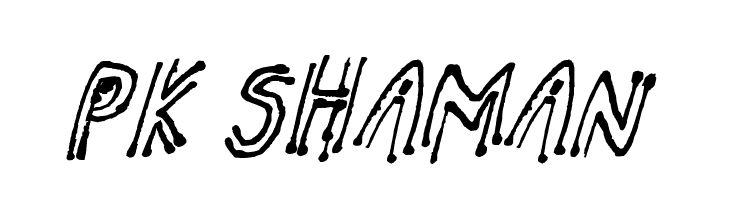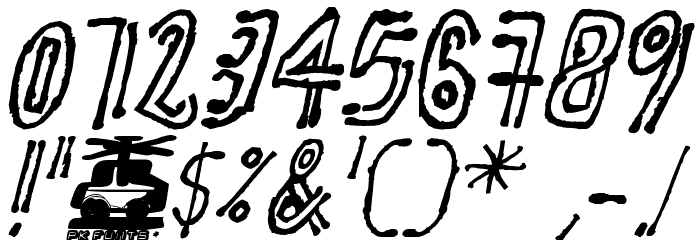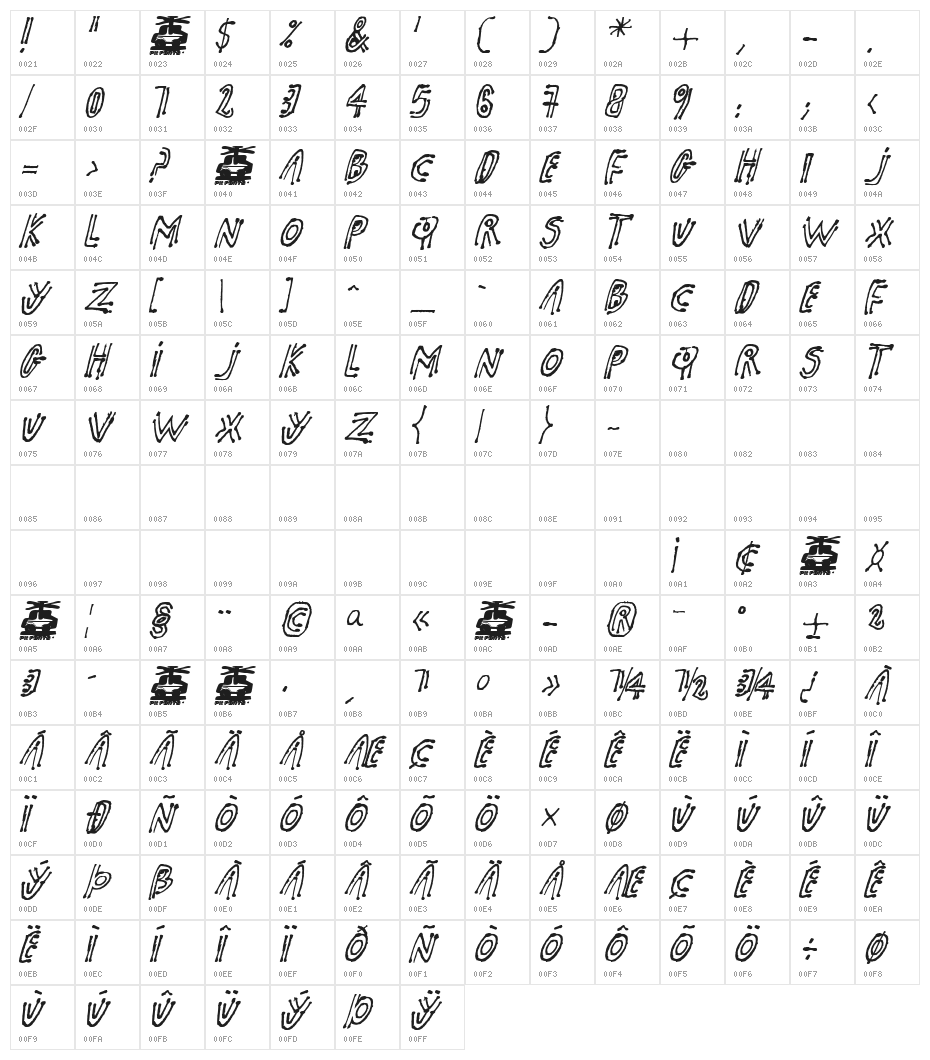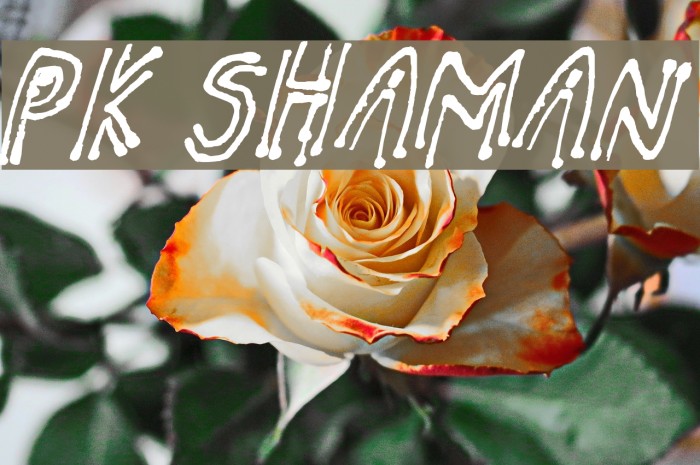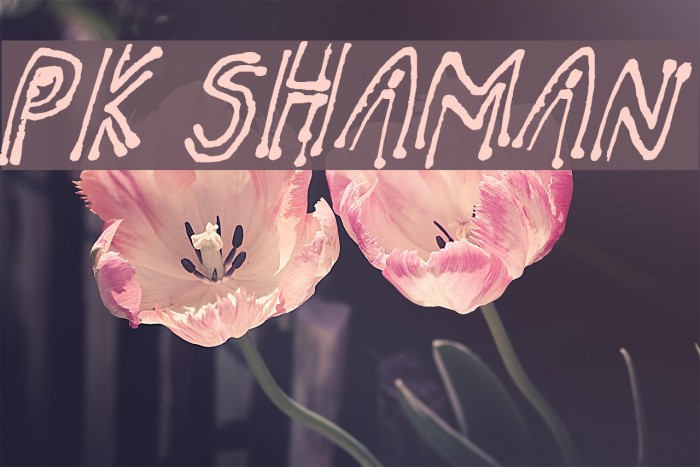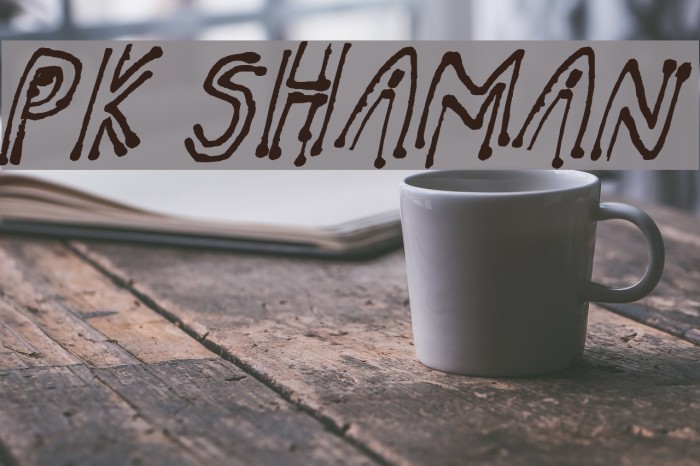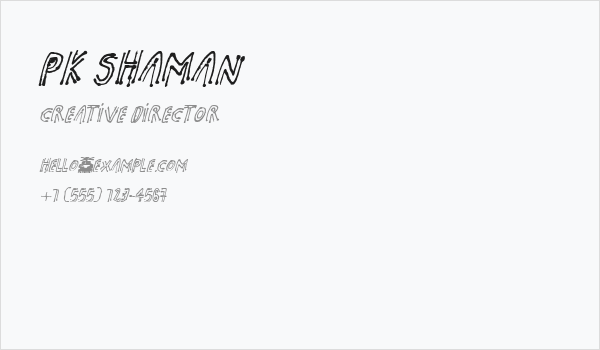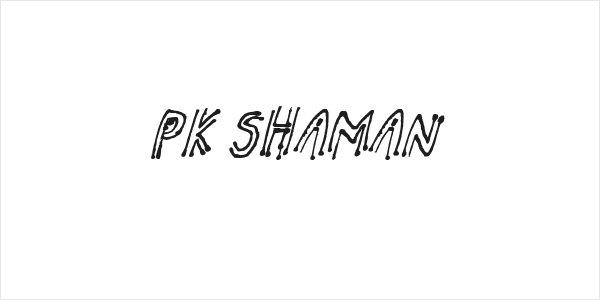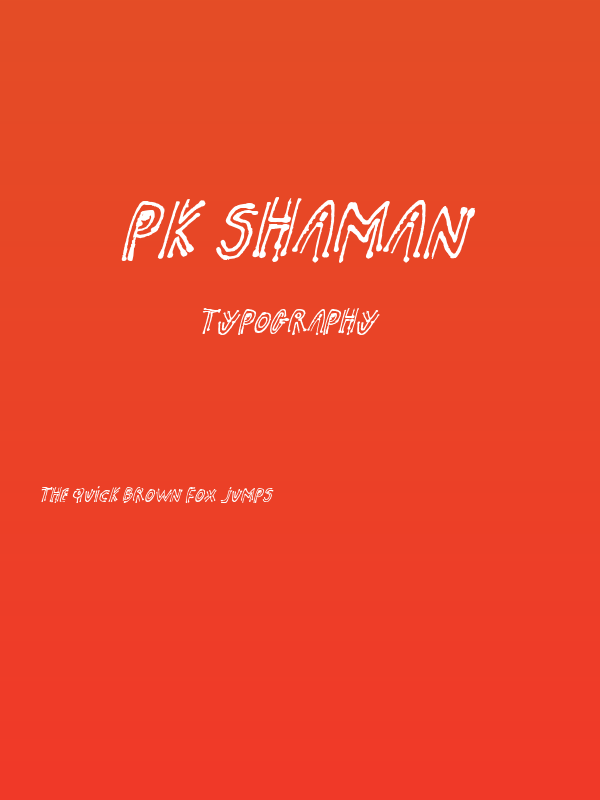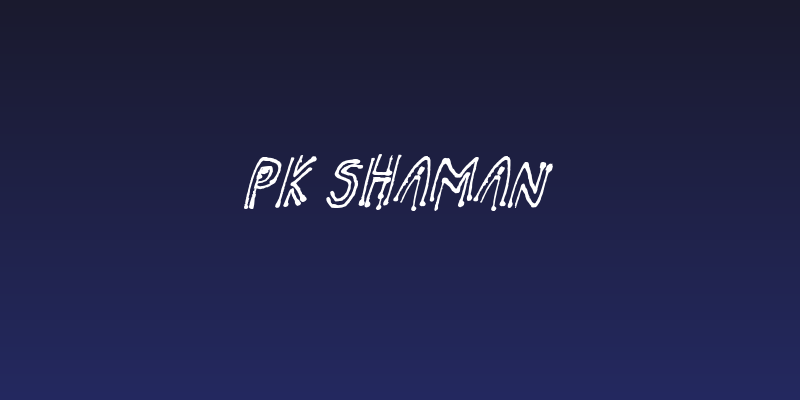
pk shaman Font
This font features a bold, hand-drawn style with a playful and slightly chaotic appearance. The letters are uneven and have a rough, sketch-like quality, giving them a dynamic and energetic feel. The strokes are thick and irregular, adding to the font's informal and artistic character. The uppercase and lowercase letters maintain a consistent style, with exaggerated curves and angles that create a sense of movement. The numbers and special characters follow the same design principles, ensuring a cohesive look across all glyphs. This font is ideal for projects that require a creative and unconventional touch.
| Use Case | Headlines, Logos, Artistic projects |
| Proposed Projects | Ideal for posters, album covers, graffiti art, and creative branding projects. |